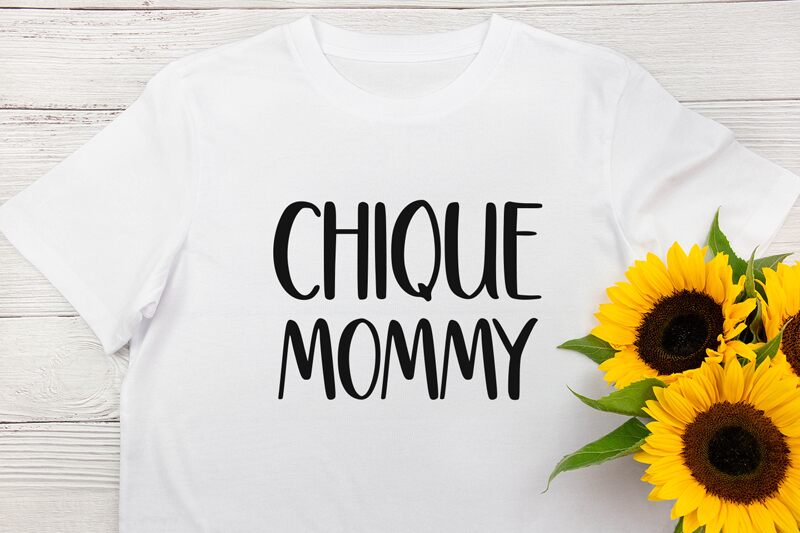
Stockhome font by Abo Daniel Studio is a free modern handwritten font. Despite its uninspired name, Stockhome is a contemporary handwritten typeface featuring creative-looking letters of uniform height and width. It’s designed with legibility and clarity in mind where all the letters are easily distinguishable from one another. A full set of uppercase characters is present in the font.
Use Stockhome font in invitation cards, name tags, badges, packaging, website, and mobile app titles. T-shirts and other casual clothing would also be relevant use scenarios. Brands can make use of the font’s light and informal tone in editorials or even on logos.